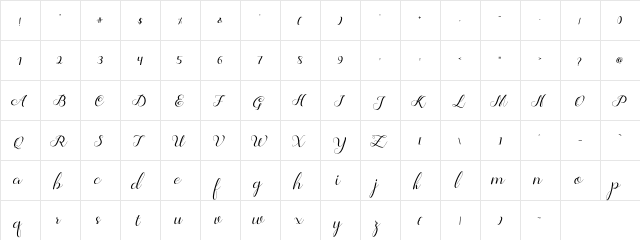
Jelita Regular
| Foundry | wdfont |
| Designer | captain jack |
Design Context for Jelita Typeface
Jelita is a composed and adaptable typeface that performs quietly and consistently across a wide range of design contexts.